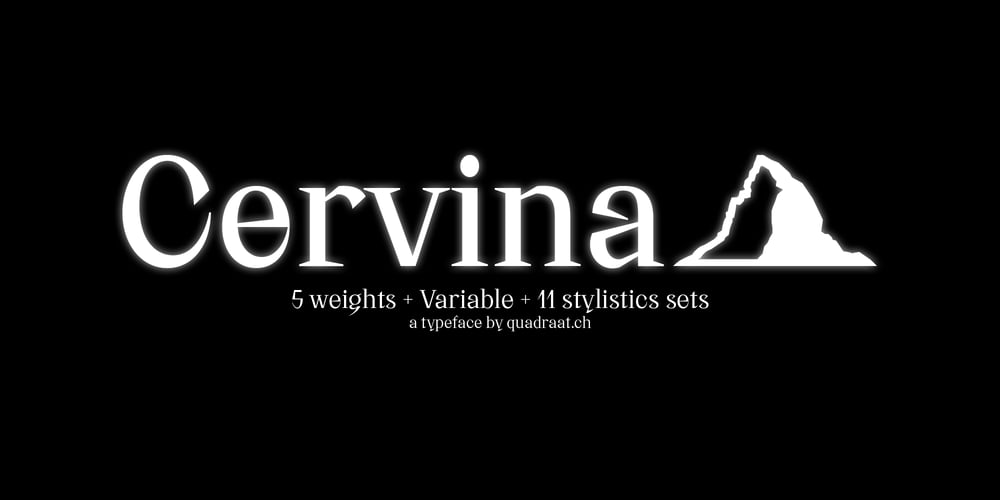
Cervina
Cervina font
Cervina Font Family was designed by Raphael Picard, Julien Métille and published by QUADRAAT. Cervina contains 6 styles and family package options. Currently the only serif font from the Quadraat foundry. Cervina is characterized by a sharp lettering like the edge of the Hörnli or knife blades as well as closed forms in lowercases plus a stylistic set of square numerals. Cervina is a typeface specifically designed for big volumes of text but also for titles of books, newspapers, magazines, posters. Variable format available on request.Supports all latin languages